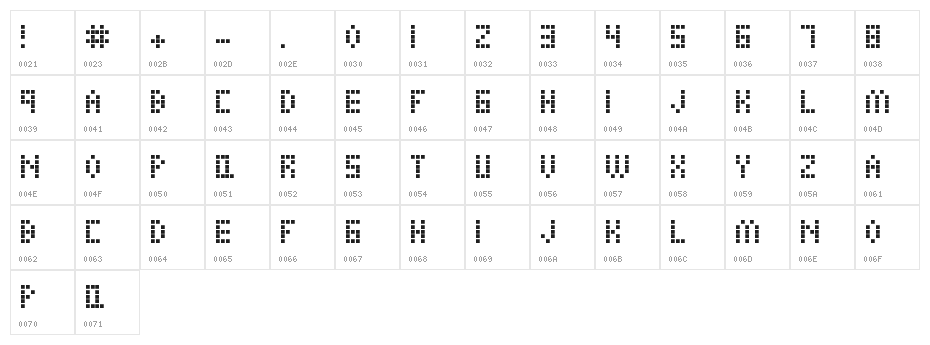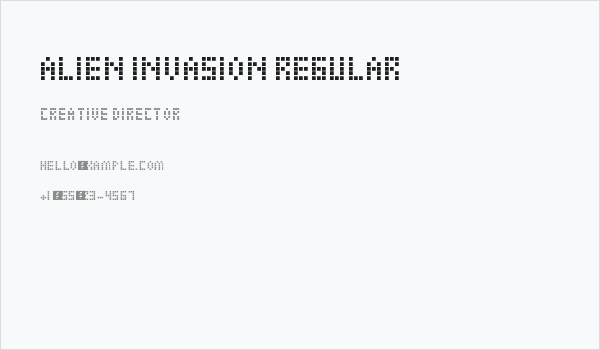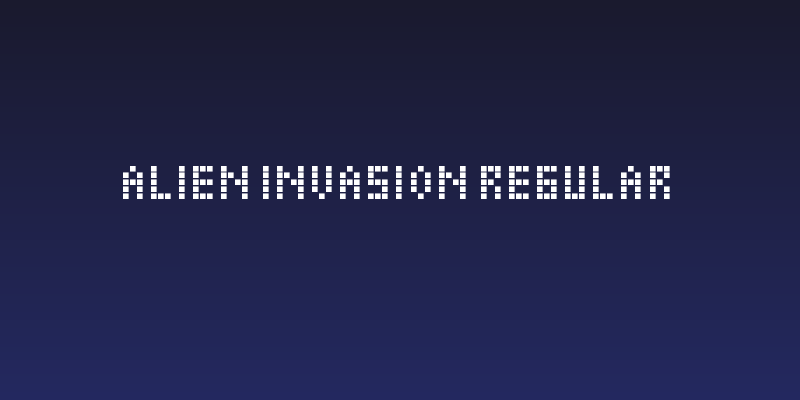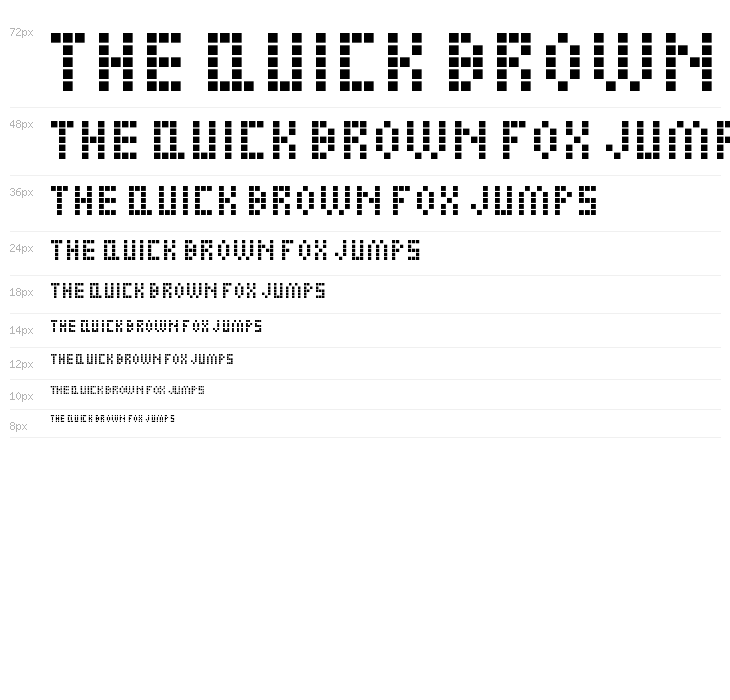
Alien Invasion Regular Font
Alien Invasion Regular Description
This font features a unique, futuristic design composed of square blocks forming each character. The geometric structure gives it a digital, pixelated appearance reminiscent of early computer graphics or retro video games. Each letter and number is constructed with uniform squares, creating a consistent and cohesive look across the entire set. The font is highly stylized, making it ideal for projects that require a modern, tech-inspired aesthetic. Its bold and distinct appearance ensures readability while adding a creative flair to any design.
| Proposed Projects | Ideal for video game titles, tech-themed posters, digital art projects, and sci-fi branding. |